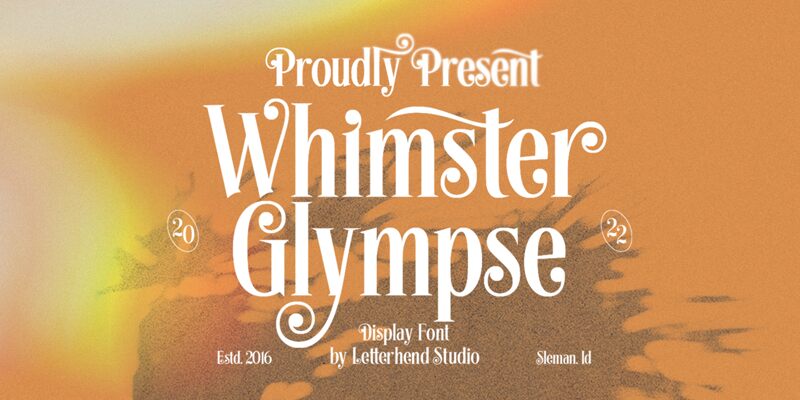
Whimster Glympse font, crafted by Letterhend Studio, is a striking display font with a charming retro vibe and elegant serif details. Its condensed design accentuates its vintage appeal, making it perfect for eye-catching headlines and unique branding projects. The playful yet sophisticated curves invite creativity, offering an enticing blend of nostalgia and modernity.
Ideal for logo design, poster art, and packaging, this free font download elevates any project that demands attention with style. Whimster Glympse is the go-to choice for designers seeking to infuse their work with a touch of timeless elegance and bold character.